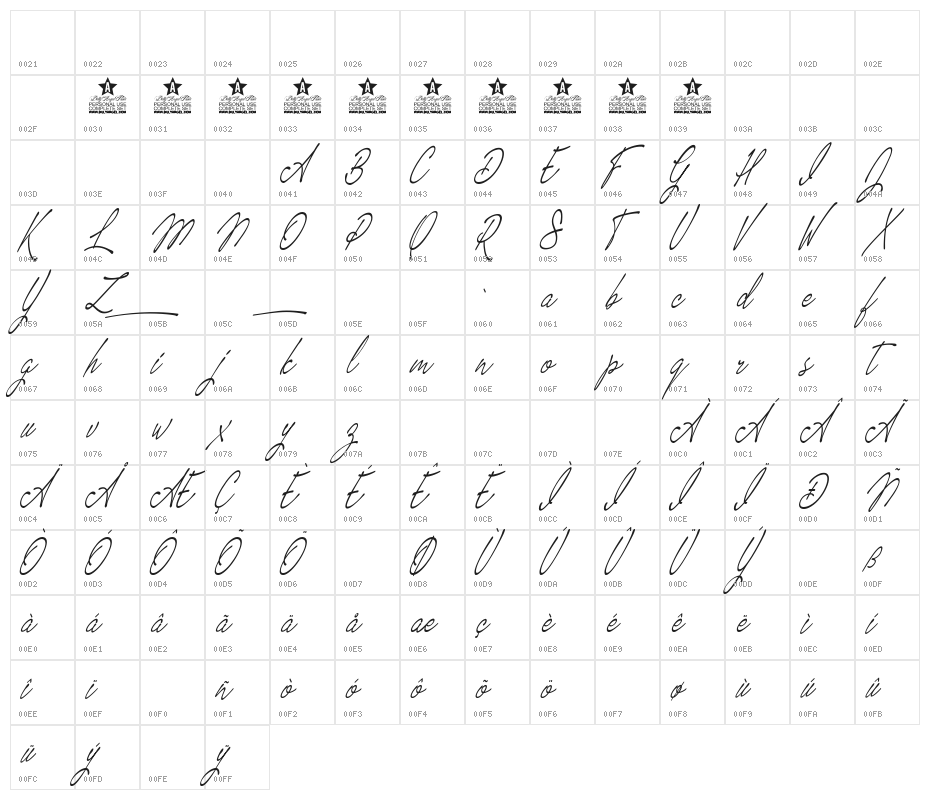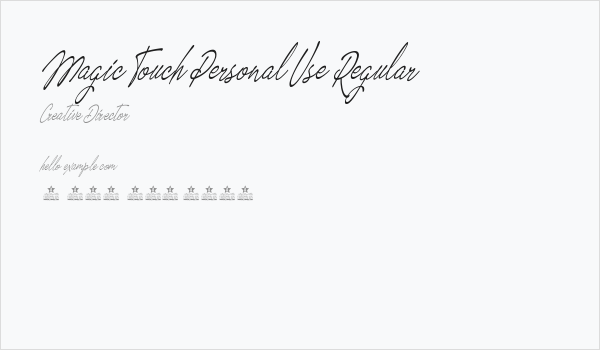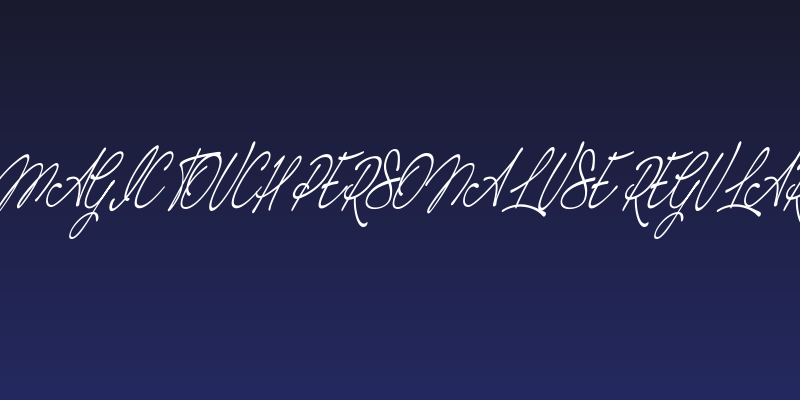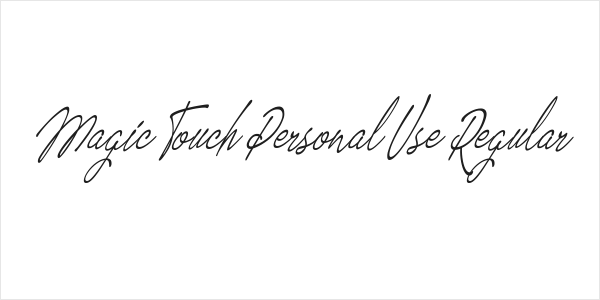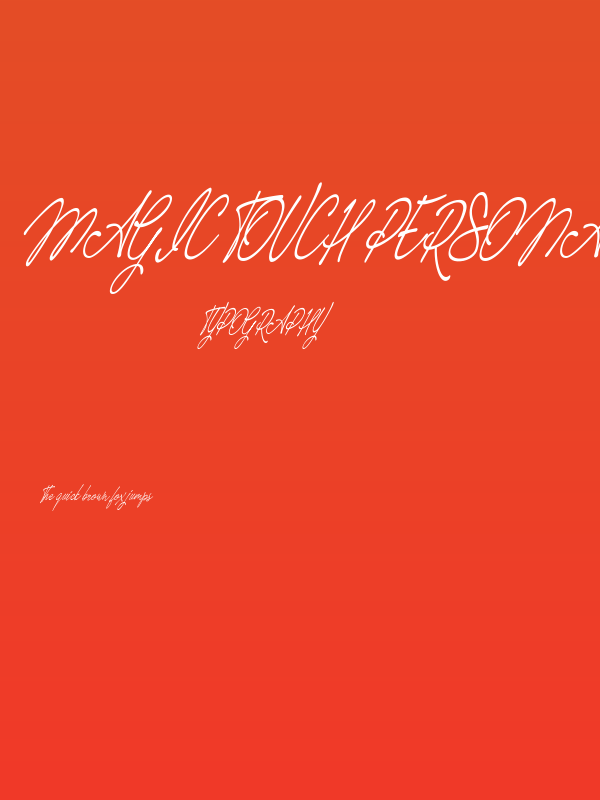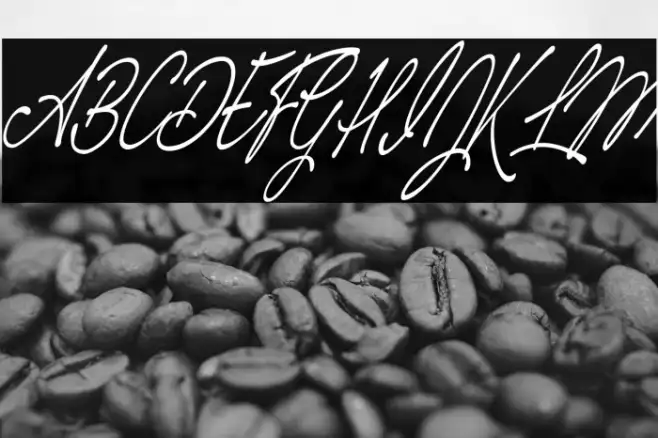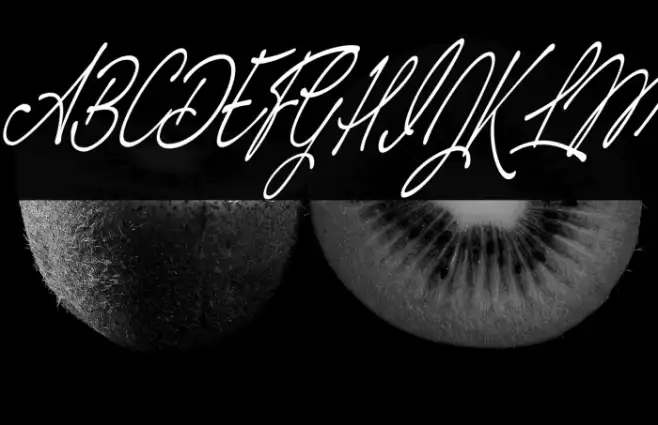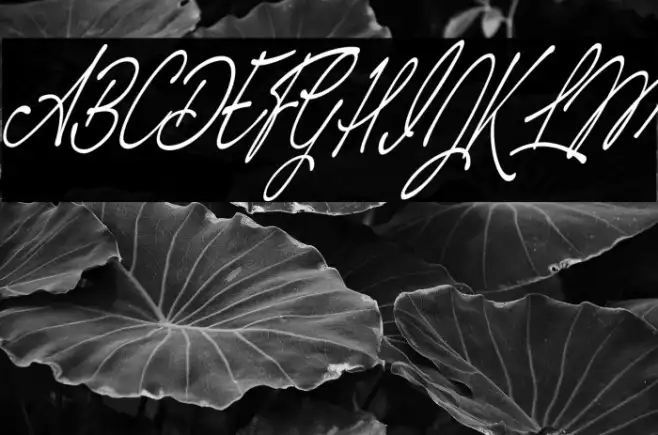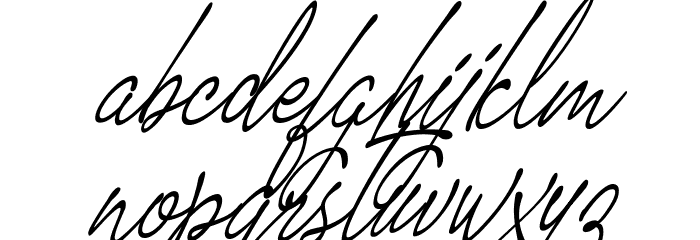
Magic Touch Personal Use Regular Font
Magic Touch Personal Use Regular Description
This font features an elegant, flowing script style that mimics the fluidity of natural handwriting. The characters are connected, creating a seamless and continuous look that is both sophisticated and artistic. The uppercase letters are tall and graceful, while the lowercase letters maintain a consistent slant, enhancing the cursive aesthetic. The font's strokes are smooth and rounded, with a medium contrast between thick and thin lines, adding to its legibility and charm. This style is reminiscent of traditional calligraphy, making it suitable for projects that require a personal and refined touch.
| Use Case | Logos, Invitations, Personal branding |
| Proposed Projects | Ideal for wedding invitations, greeting cards, personal branding, and elegant logo designs. |